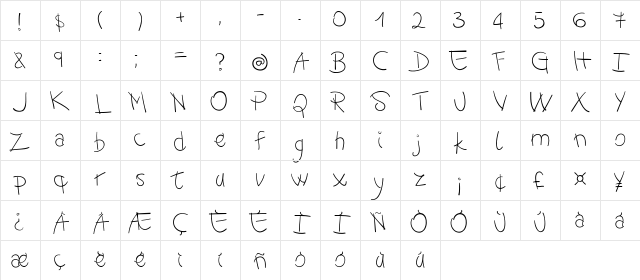
-Moody Spaghetty- DEMO Light Free Font
-Moody Spaghetty- DEMO Light
Foundry: Camilla Bertoni
Designer: Camilla Bertoni
Design Context for -Moody Spaghetty- DEMO
-Moody Spaghetty- DEMO is a composed and adaptable typeface that performs quietly and consistently across a wide range of design contexts. Its slender proportions lend an understated elegance to any composition.